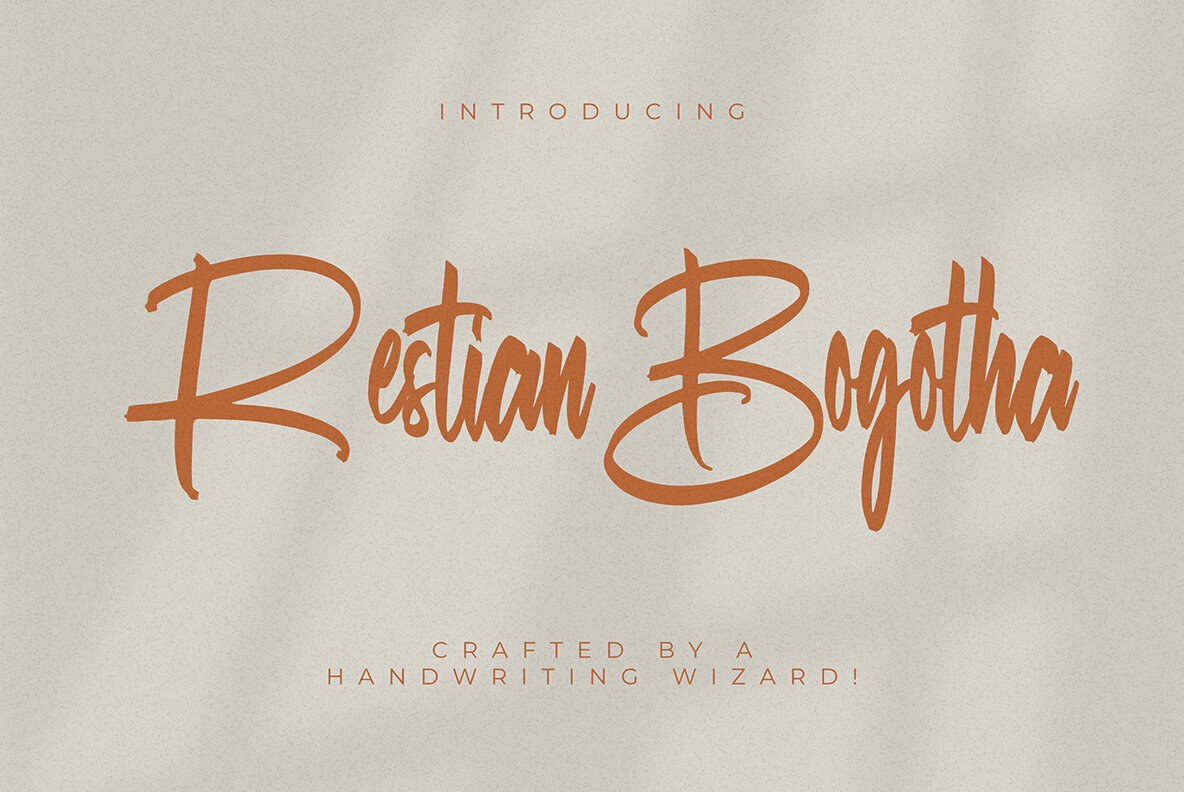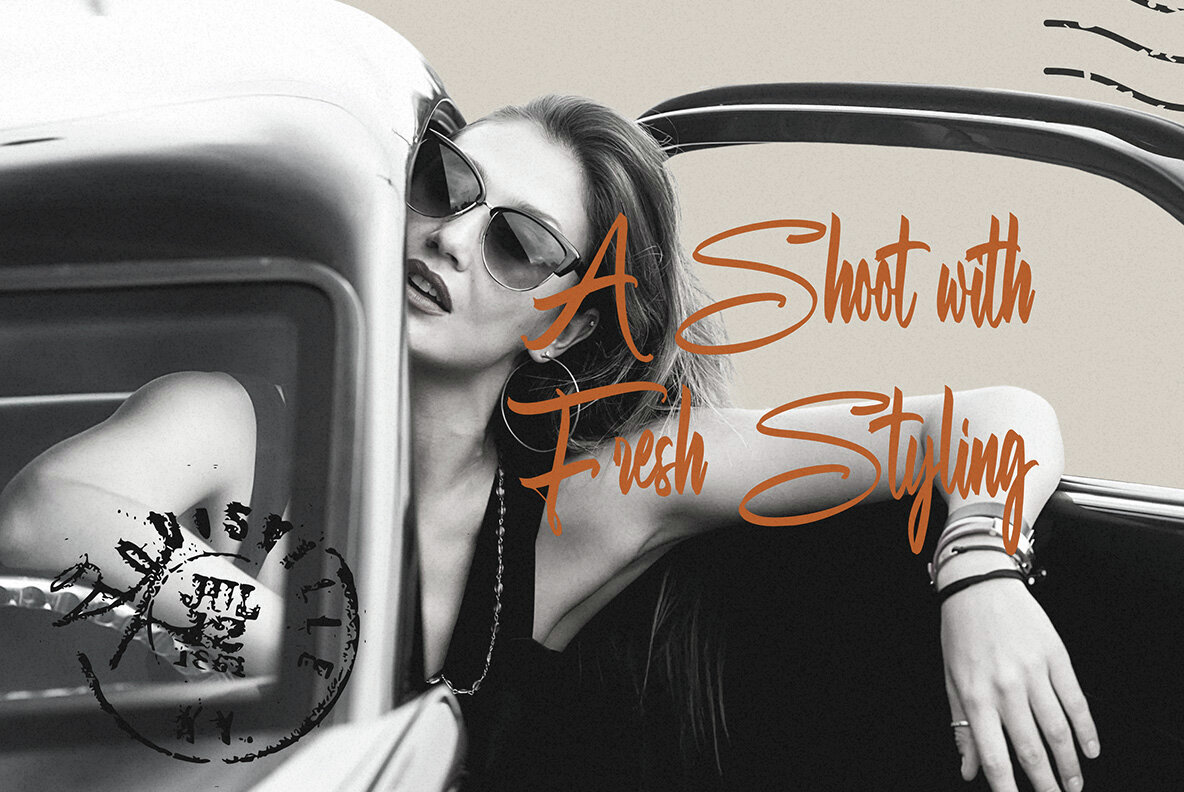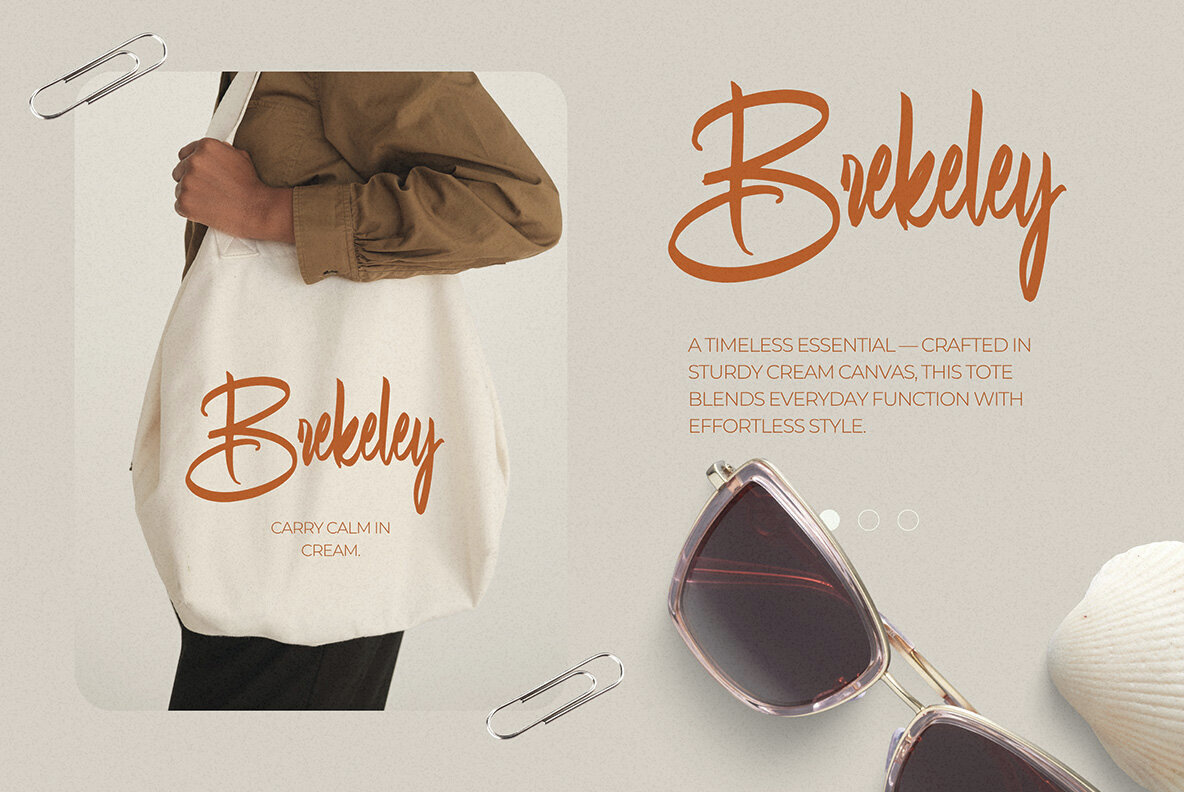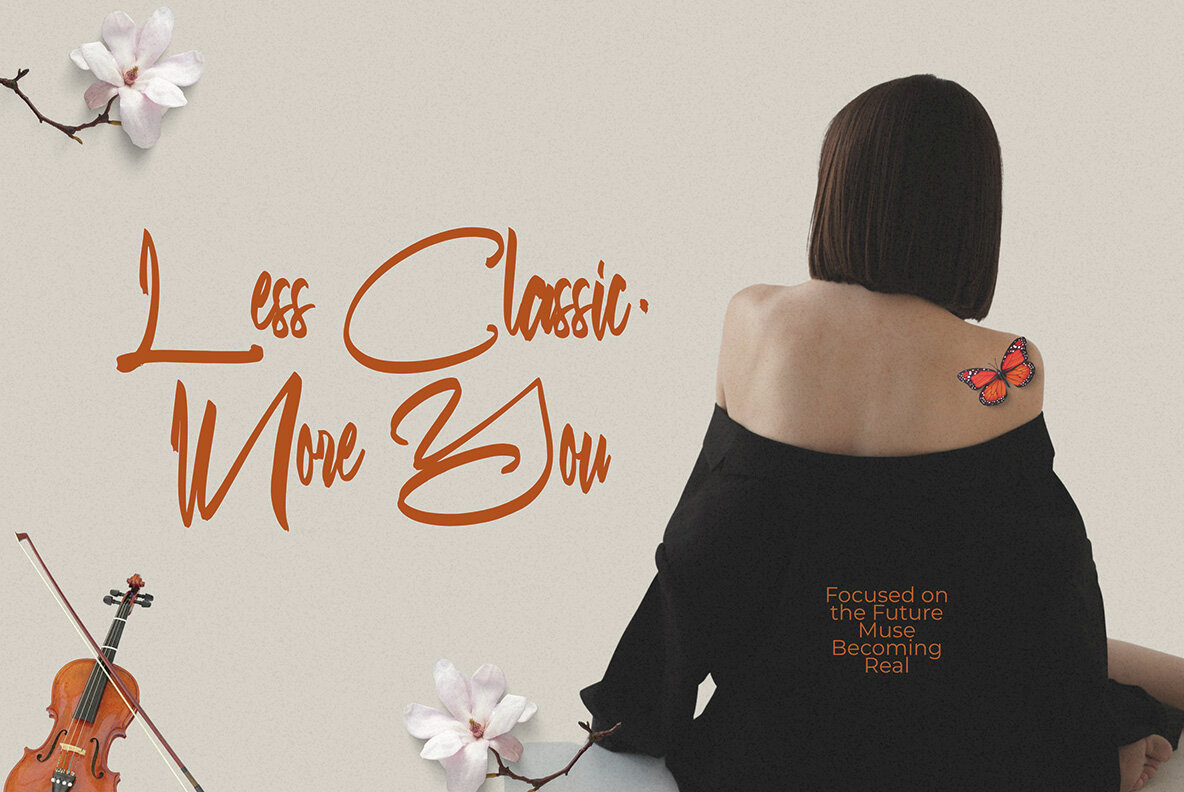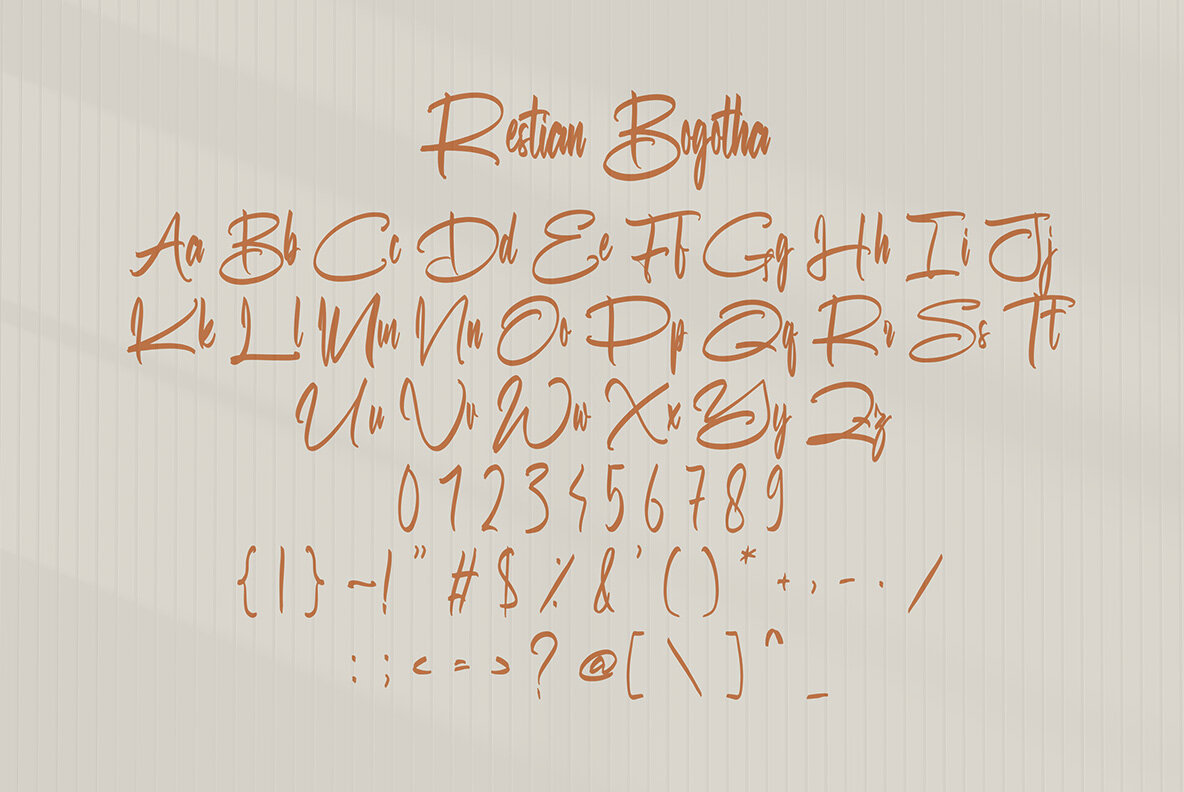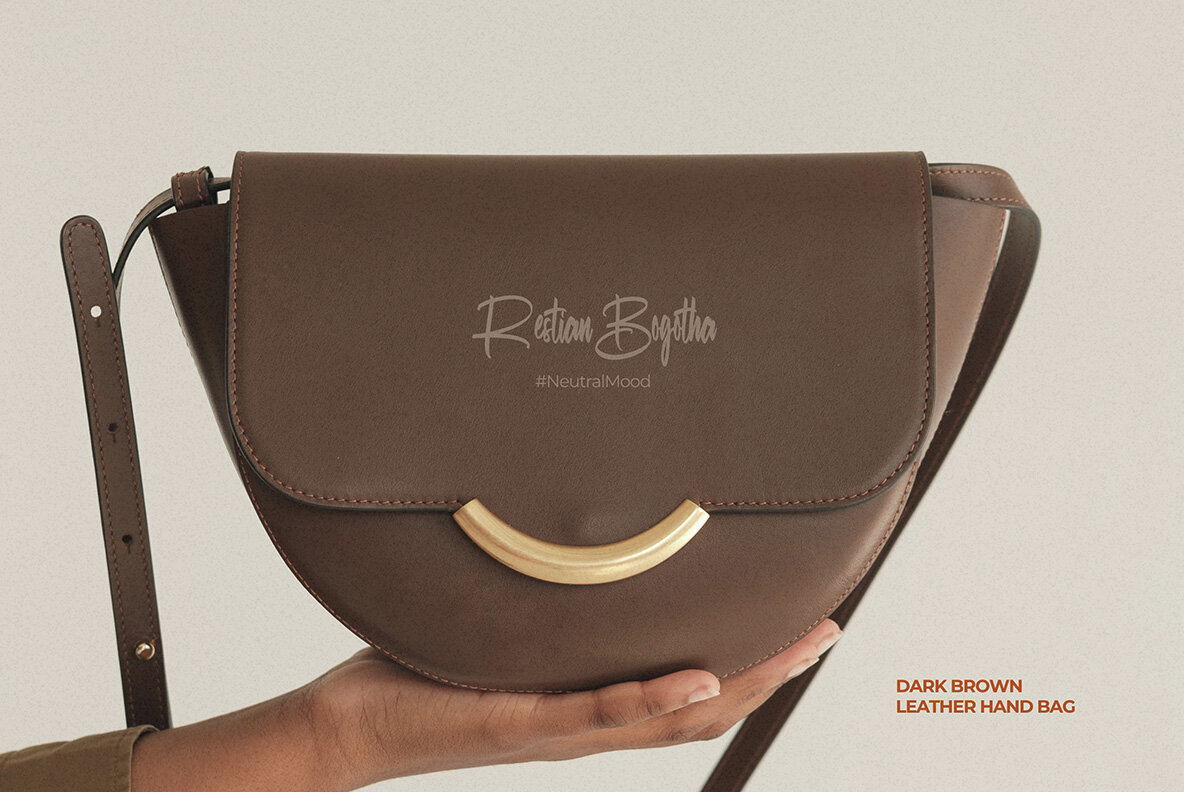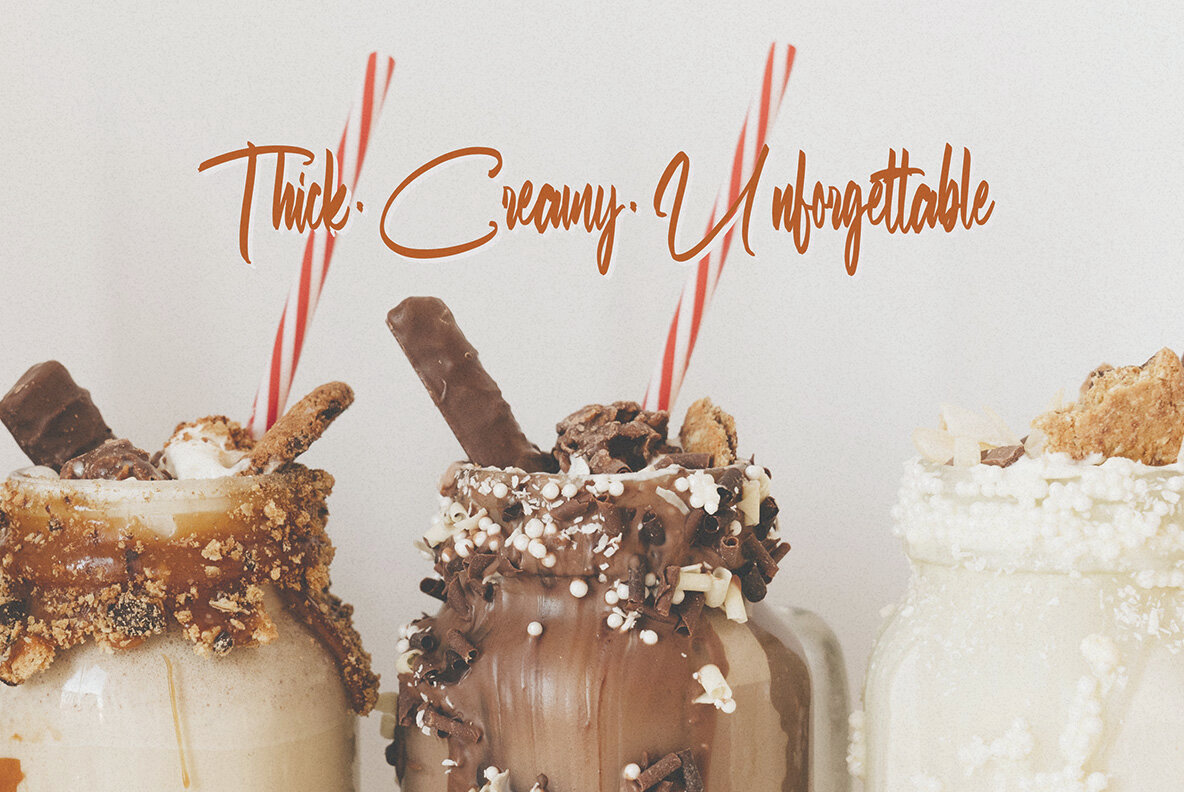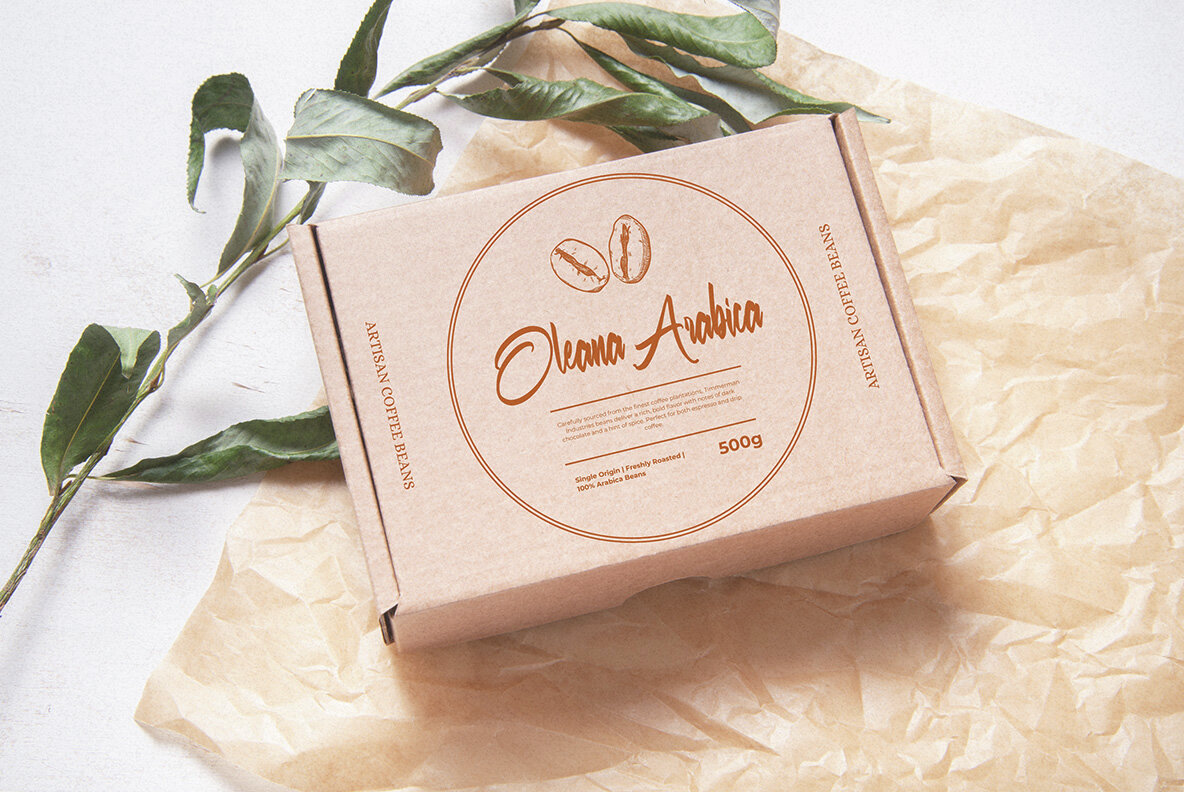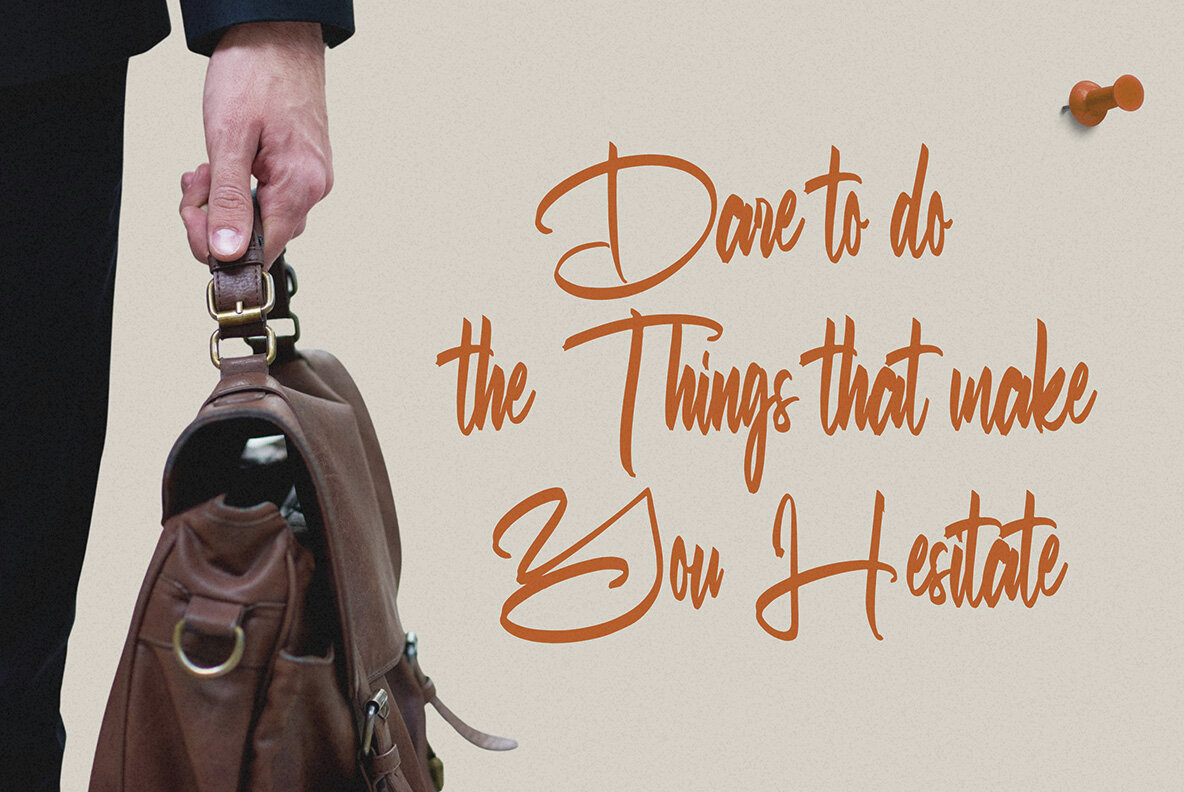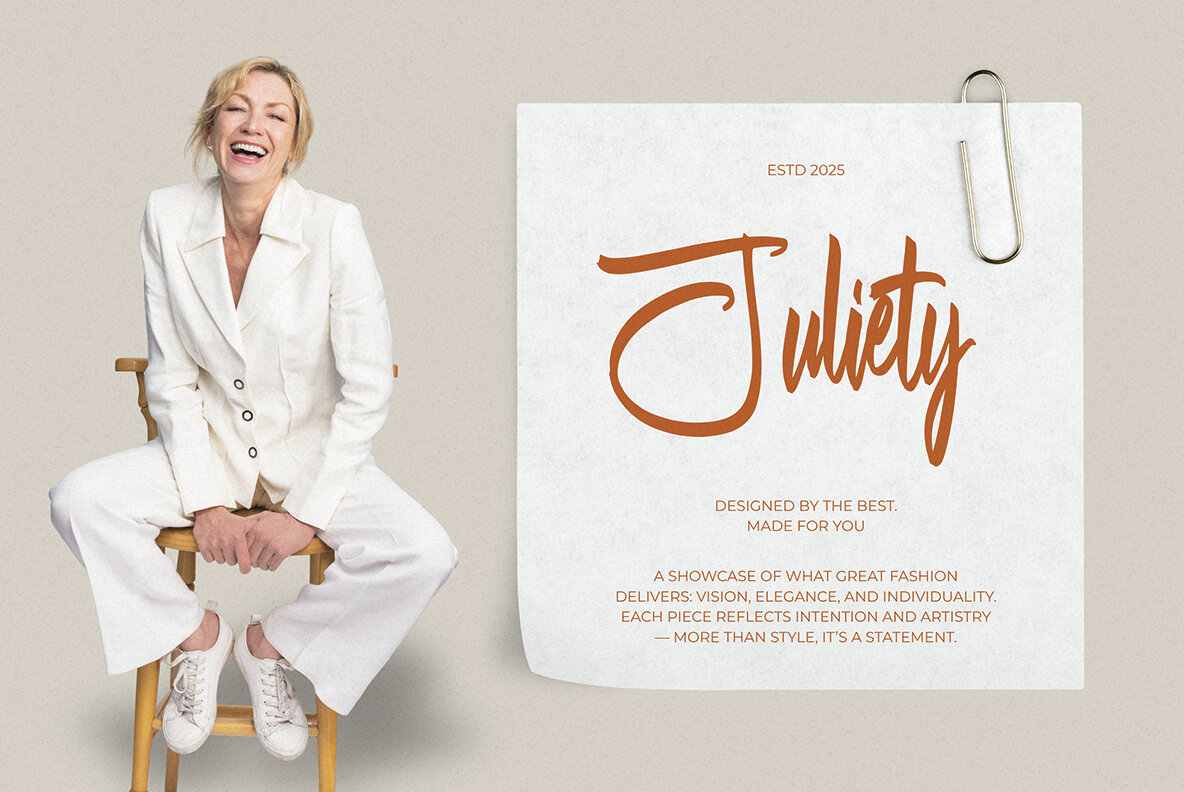
Restian Bagotha: Luxurious Script Typeface
Imbued with the essence of classic calligraphy and a contemporary flair, Restian Bagotha is an elegant script typeface that captures sophistication through its flowing curves and graceful swashes. This refined choice is ideal for branding, wedding stationery, high-end packaging, and editorial designs, where it evokes both emotion and style.
With meticulous attention to detail, every stroke of Restian Bagotha lends a sense of movement and personality to your creations. Perfectly suited for logotypes, headlines, and invitations, this typeface brings a beautifully expressive touch to any project.